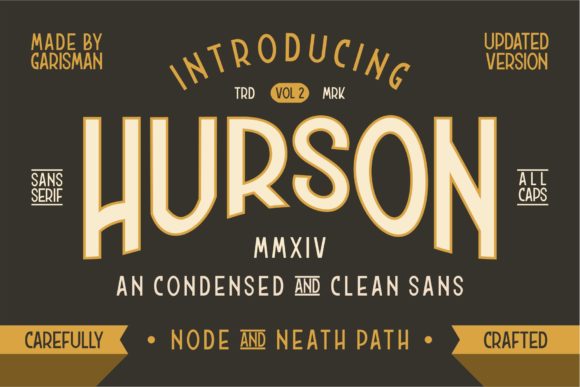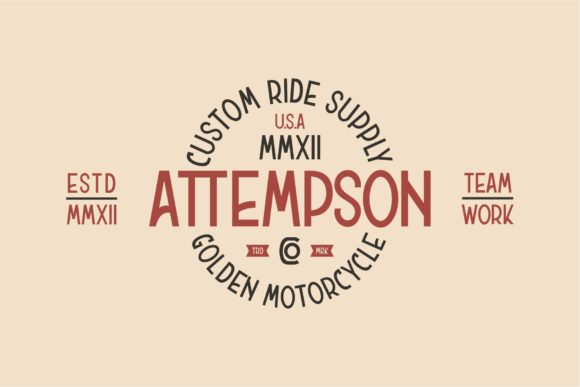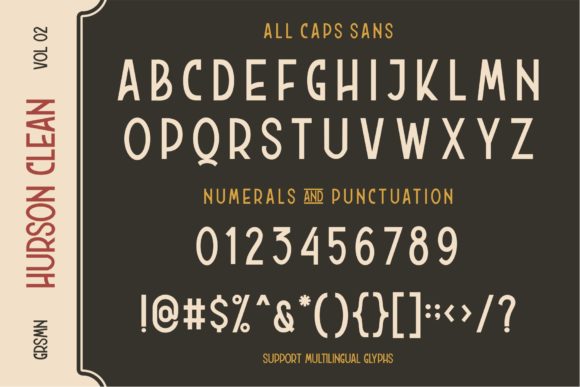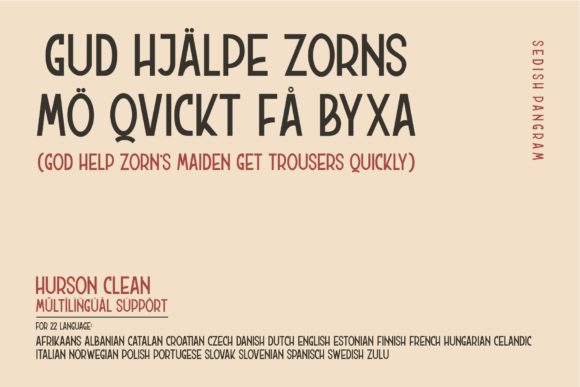
Hurson Font: A Vintage Sans Serif for Classic Logo Design
About the Hurson Font
Make a bold statement with Hurson Font, a powerful and memorable font. This clean version of the Hurson has a vintage, classic, handmade look. It can be used for branding materials, t-shirts, prints, business cards, logos, posters, t-shirts, photography, quotes, and much more!
Hurson excels in headline applications, short blocks of text, and display uses such as logos and posters. Its vintage charm works particularly well for brands aiming for a classic, handcrafted feel—think artisanal goods, coffee shops, or vintage clothing lines. It’s less suitable for body text or UI elements where readability over extended lengths is crucial.
Pairing Hurson with a clean sans-serif like Open Sans for body copy provides excellent contrast and enhances legibility. For a more playful feel, consider a rounded geometric sans-serif such as Circular Std. A classic serif like Garamond might also create an elegant, timeless combination.
Hurson’s overall personality is one of refined vintage charm and understated elegance. Its handmade aesthetic conveys authenticity and timelessness, making it a strong choice for projects that value a sense of history and craftsmanship.